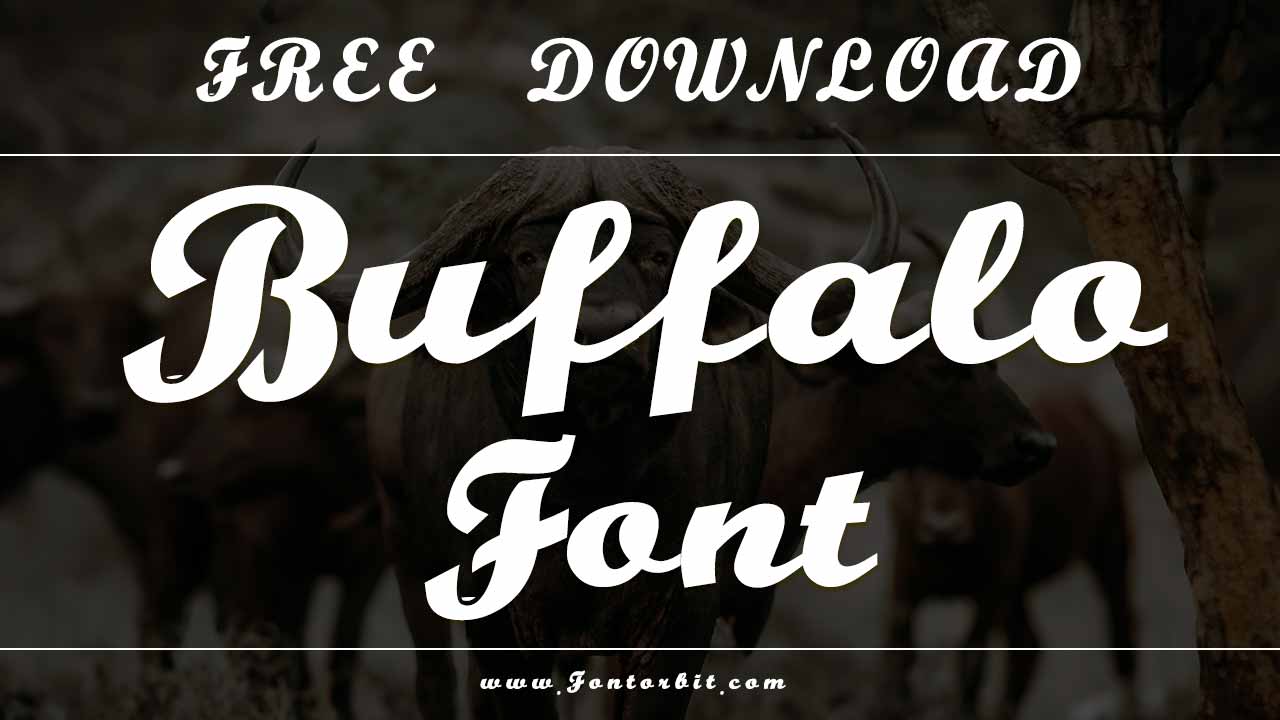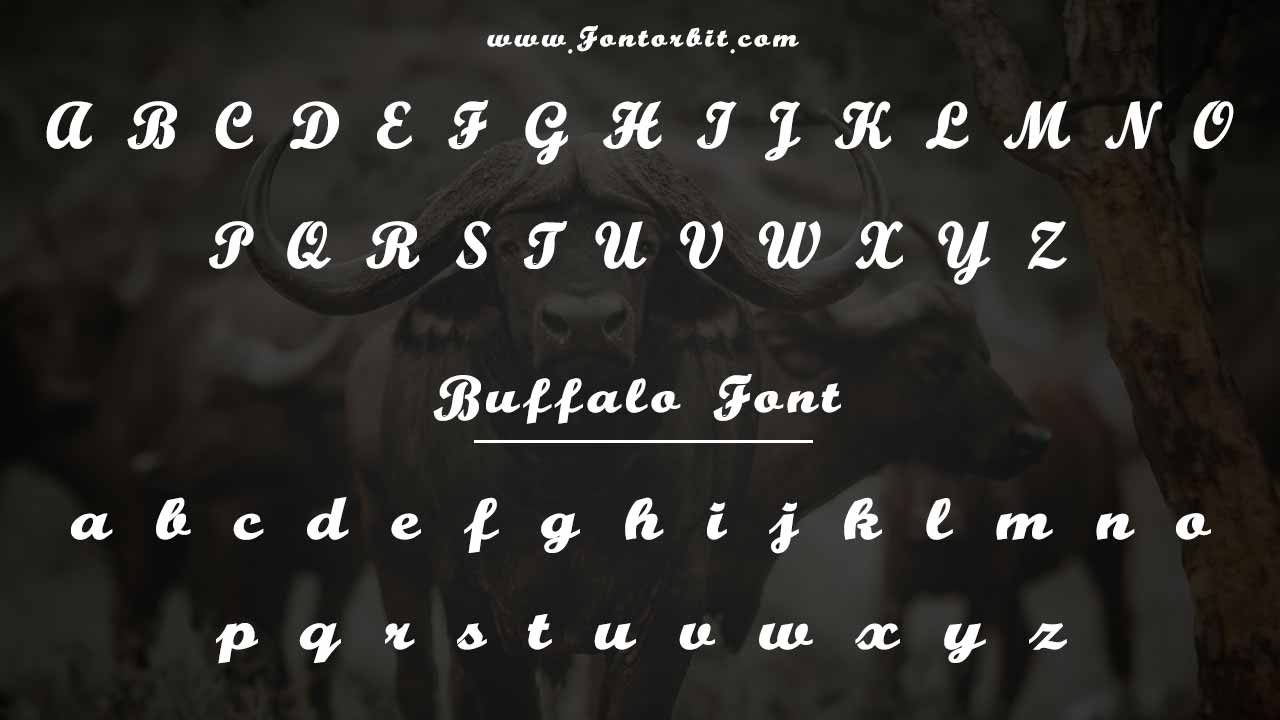
Buffalo Font is a prime example of a typeface that blends vintage charm with modern usability. Whether you’re designing a logo, creating greeting cards, or working on branding, this font offers versatility and character. Let’s explore everything you need to know about Buffalo Font, from its design features to commercial uses and best font pairings.
What Makes Buffalo Font Special?
Buffalo Font stands out due to its elegant curves, calligraphic strokes, and balanced spacing. It’s a script font with a blend of retro fonts and modern fonts, making it perfect for both digital and print designs. If you’re a font designer or a branding expert, you’ll appreciate its fluidity and charm.
One of its biggest strengths is its ability to fit various design aesthetics. It has a handwritten feel but retains a professional edge, making it an amazing font for advertising, captions, and greeting cards. Whether you’re crafting an elegant invitation or a stylish logo, Buffalo Font delivers.
Buffalo Font Styles And Character Map
- Buffalo Regular – Classic and smooth script
- Buffalo Italic – Stylish and flowing cursive
Buffalo Font comes in multiple styles, with Buffalo Regular being the most commonly used. The character map of Buffalo Font includes:
- Uppercase Letters: Elegant, slightly exaggerated strokes for a refined look.
- Lowercase Letters: A natural flow that connects beautifully in script form.
- Alternate Characters: Additional glyphs and swashes that enhance customization.
- Numbers & Symbols: Well-crafted to maintain stylistic consistency.
Understanding Font Categories: Where Buffalo Font Fits
Buffalo Font belongs to multiple font categories, which makes it a versatile choice for designers. Here are some classifications it falls under:
- Script Fonts: Inspired by handwriting, Buffalo Font has the organic, flowing strokes of classic calligraphy fonts.
- Signature Font: It mimics natural handwriting, making it ideal for personal branding and creative projects.
- Logo Fonts: Buffalo Font has been widely used in logo design due to its decorative appeal and ability to stand out.
- Brush Fonts: It has a soft, painted feel, making it perfect for projects that require an artistic touch.
- Display Fonts: This typeface is eye-catching and designed to grab attention in headlines and promotional materials.
- Decorative Fonts: Buffalo Font adds an aesthetic touch to creative designs with its stylistic swashes and curves.
Best Uses For Buffalo Font
Buffalo Font is widely used in various design fields. If you’re a designer, here’s how you can make the most of it:
1.Branding & Logos
Buffalo Font shines in branding, whether for luxury boutiques or casual cafes. Modern fonts like Buffalo make logos feel stylish yet approachable.
2.Advertising & Marketing
From posters to social media ads, Buffalo Font makes an impact. It combines elements of serif fonts, script fonts, and display fonts to create a unique visual identity.
3.Greeting Cards & Invitations
Buffalo Font is a Christmas font favorite, perfect for holiday greetings. It’s also great for wedding invitations and event flyers.
4.Merchandise & Apparel
T-shirt designs, mugs, and tote bags featuring Buffalo Font add a creative, handcrafted touch.
5.Website & Digital Content
It works well for captions, advertisements, and branding elements on websites, giving them a sleek yet artistic vibe.
Font Pairings: What Goes Well With Buffalo Font?
Font pairing is key to great design. Here are some fonts that work well with Buffalo Font:
- Sans Serif Fonts: Pair Buffalo with modern, clean fonts like Montserrat or Open Sans for a balanced look.
- Slab Serif Fonts: Mix Buffalo with fonts like Roboto Slab if you want a bold contrast.
- Typewriter Font: Adds a vintage feel when paired with Courier New or American Typewriter.
- Blackletter Font: If you aim for an old-world aesthetic, pair Buffalo with Gothic-style fonts.
6.What Are Some Similar Fonts?
Brush, script, decorative, and retro fonts complement Buffalo Font.
7.Can I Use Buffalo Font For Retro Or Horror-Themed Projects?
Yes, its handwritten style makes it a great choice for themed designs.